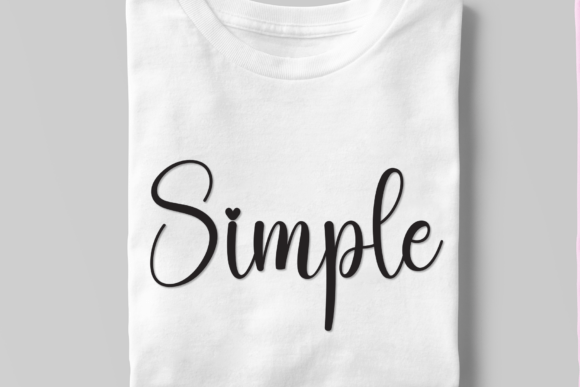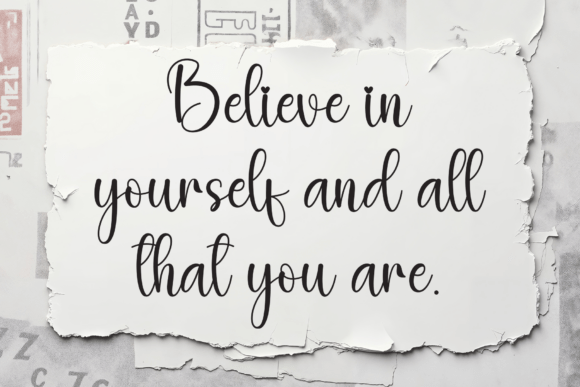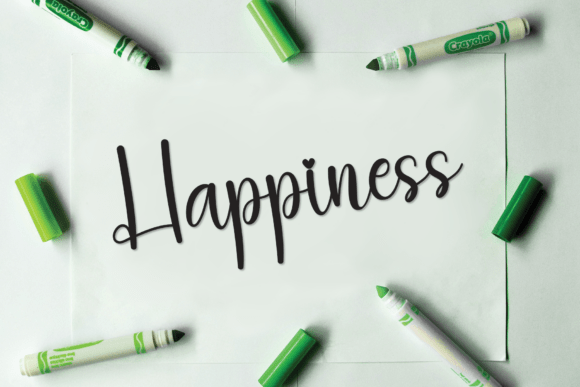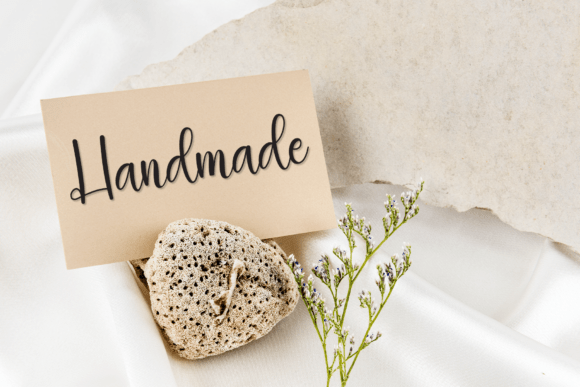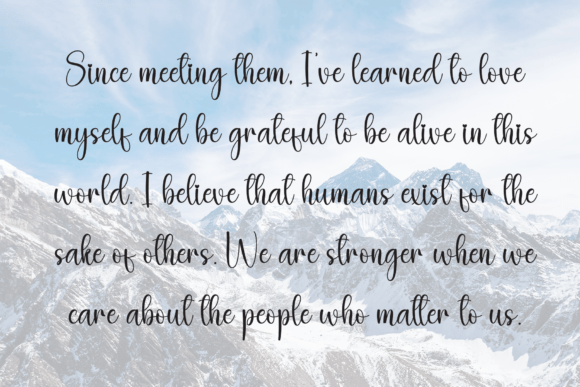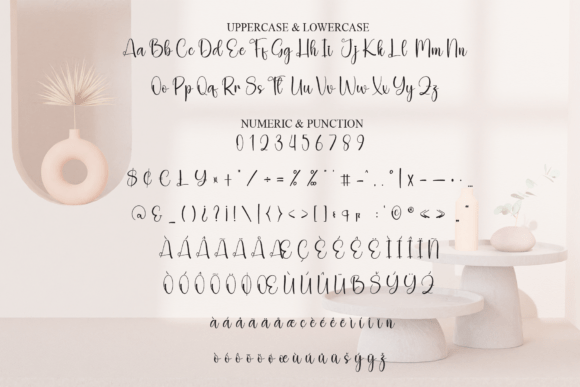
Introducing Display Minimalist Font: Add a Touch of Whimsy to Your Designs
Are you tired of using the same old fonts for your designs? Do you want to add a touch of personality and whimsy to your projects? Look no further than our captivating, hand-sketched Display Minimalist Font! This exquisite font is designed to infuse a sprinkle of charm into your paper crafts, making it the perfect choice for designers and crafters alike.
A Font that Exudes Irresistible Allure
Our Display Minimalist Font is more than just a font – it’s an experience. With its fanciful and playful characters, it’s sure to bring a joy-filled and light-hearted tone to any design project. Whether you’re creating wedding invitations, greeting cards, or any other type of design, this font is sure to make your project stand out from the crowd.
The Perfect Choice for Personalizing Your Designs
One of the best things about our Display Minimalist Font is its versatility. It’s perfect for personalizing your wedding invitations, greeting cards, or any other type of design project. The font’s playful and whimsical design adds a touch of friendliness and fun to any project, making it sure to radiate with warmth and personality.
What Makes Display Minimalist Font So Special?
So, what makes our Display Minimalist Font so special? Here are just a few reasons why designers and crafters love it:
- Hand-sketched with love: Our font is carefully hand-sketched with love and attention to detail, giving it a unique and personal touch.
- Fanciful and playful characters: The font’s fanciful and playful characters are sure to add a touch of whimsy to any design project.
- Perfect for paper crafts: Our font is specifically designed for paper crafts, making it perfect for wedding invitations, greeting cards, and other types of paper designs.
Get Ready to Add a Touch of Whimsy to Your Designs
In conclusion, our Display Minimalist Font is a must-have for designers and crafters alike. With its fanciful and playful characters, it’s the perfect choice for adding a touch of personality and whimsy to any design project. Whether you’re creating wedding invitations, greeting cards, or any other type of design, this font is sure to make your project stand out from the crowd. So why wait? Download our Display Minimalist Font today and start creating designs that radiate with friendliness and fun!